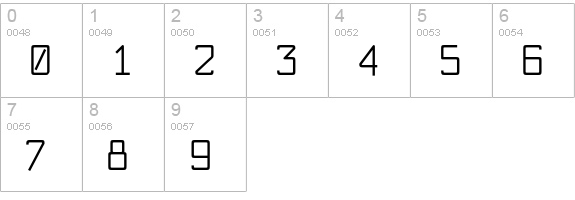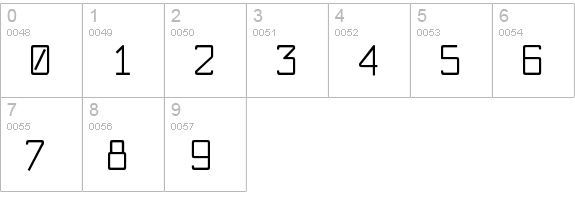
Reykjavik Font Details
Introducing the magnificent Reykjavik font, a breathtaking typeface that effortlessly combines elegance with modernity. Designed with meticulous attention to detail, Reykjavik is the perfect choice for anyone seeking to add a touch of sophistication to their designs. This versatile font showcases a harmonious blend of sleek curves and sharp angles, creating a captivating visual experience. Its clean lines and balanced proportions make it highly legible, ensuring clarity in both print and digital mediums. The Reykjavik font is an embodiment of creativity and versatility, making it suitable for a wide range of projects. Whether you're designing a logo, crafting a website, or creating eye-catching marketing materials, this font will lend a distinct and professional touch to your work. One of the most remarkable aspects of Reykjavik font is that it is freely available to download at FontsMarket.com. This means that you can enhance your design projects without any financial constraints. Embrace the freedom to explore your creative potential with this remarkable font that brings a touch of elegance and uniqueness to every project. Download Reykjavik font now from FontsMarket.com and embark on a design journey that will captivate and inspire. Let this font be the perfect companion for your artistic expressions, unlocking a world of endless possibilities.